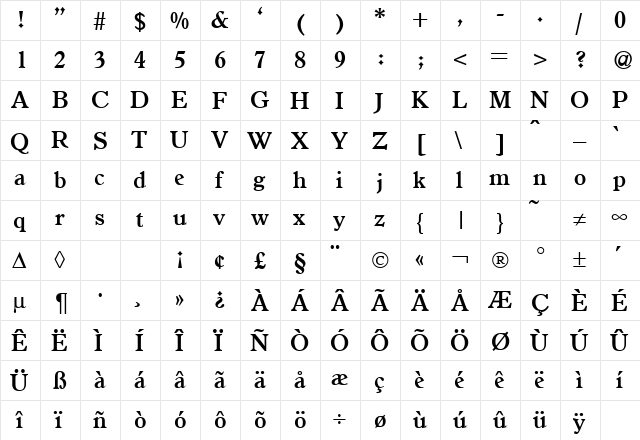
IstriaOldStyle Bold Font Preview
IstriaOldStyle Bold
IstriaOldStyle Bold Font Details
Design Context for IstriaOldStyle Typeface
IstriaOldStyle brings classic typographic sensibility to the table — its serifs and measured letterforms reflect centuries of print heritage. Its bold stroke weight gives it real presence on the page.